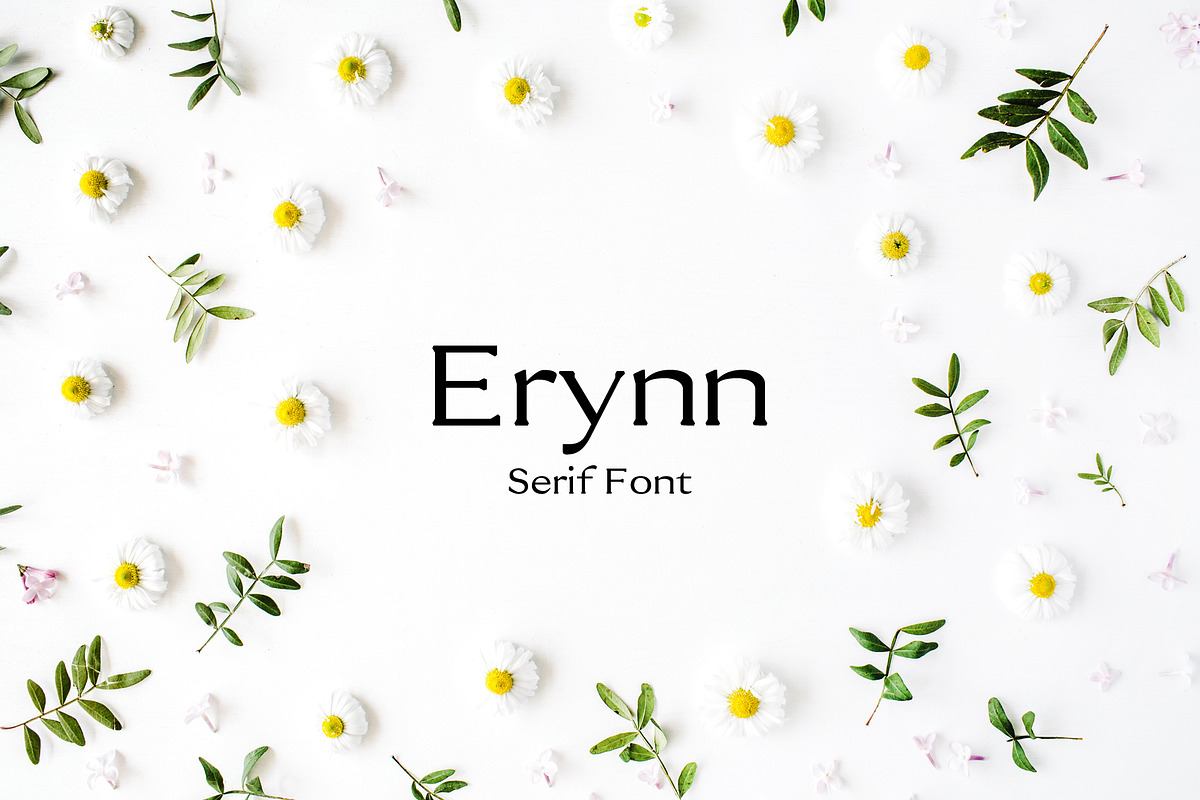
Erynn Serif Font is perfect for editorial magazine designs, classic book publishing, elegant branding projects, sophisticated logo creation, academic publications, professional business materials, literary journal layouts, traditional newspaper headlines, formal invitation designs, upscale restaurant menus, corporate identity systems, and refined typography applications.
Erynn Serif Font is exciting because it embodies timeless literary elegance and scholarly sophistication through its beautifully balanced letterforms that honor traditional serif craftsmanship while offering contemporary readability and versatility. This distinguished typeface features classical proportions with refined details that create an atmosphere of intellectual depth and cultural refinement. The font's scholarly character makes every text feel important and worthy of careful consideration, elevating content to literary status.
Erynn Serif Font includes comprehensive font families: Regular Classic Style, Bold Authoritative Weight, Light Graceful Touch, Medium Balanced Format, Italic Scholarly Slant, Condensed Academic Width, Extended Literary Format, Small Caps Variation, Ornamental Traditional Elements, and Special Editorial Symbols, providing complete typographic solutions for scholarly and literary design requirements.
This distinguished typography solution transforms ordinary text into scholarly communications through its authentic academic aesthetic and literary design heritage. Erynn Serif Font Free Download enables designers and publishers to access premium serif typography that instantly adds intellectual gravitas, cultural sophistication, and literary elegance to any creative project. The font's meticulously crafted proportions ensure exceptional readability while maintaining its distinctive scholarly character and traditional appeal.
Publishers, educational institutions, and cultural organizations trust Erynn Serif Font for its ability to communicate knowledge, authority, and intellectual rigor to audiences who value scholarly excellence and literary tradition. The typeface's versatile construction performs beautifully across various applications, from intimate academic papers to large-scale editorial publications. Its extensive character support includes multilingual capabilities and traditional design elements that enhance scholarly and literary presentations.
The design philosophy behind Erynn Serif Font draws inspiration from classical literary traditions, academic publishing standards, and the enduring appeal of scholarly typography that has shaped intellectual discourse for centuries. This knowledge-focused approach creates a font that feels genuinely academic while maintaining contemporary usability across different educational contexts and intellectual brand expressions.
Whether creating academic publications, literary magazines, or scholarly brand identities, this serif font delivers exceptional results that resonate with audiences seeking intellectual depth and cultural sophistication. Download Erynn Serif Font today and discover how premium scholarly typography can transform your design projects into distinguished expressions of knowledge, wisdom, and literary excellence that honor the great traditions of academic and cultural communication.